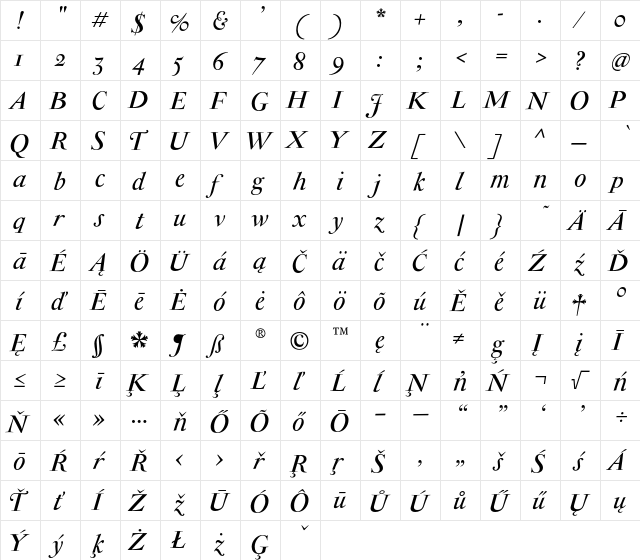
Antique Moderne CE Italic
Design Context for Antique Moderne CE Typeface
Antique Moderne CE wears its vintage influences proudly, with letterforms that recall mid-century signage, classic packaging, and nostalgia-driven design. The dynamic lean of this cut emphasises speed and emphasis in any layout.
Font Pairing: Combine Antique Moderne CE with a simple slab or neutral sans — period-accurate companions reinforce the vintage feel without competing for attention.
Pro Tip: Lean into Antique Moderne CE's period character by pairing it with aged paper textures, muted colour palettes, and vintage illustration styles.